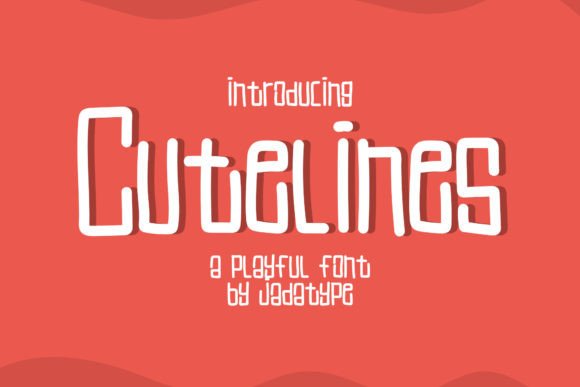
Introducing Cutelines: Where Whimsy and Style Entwine
Welcome to the world of Cutelines, a display font that captivates with its monoline lines and endless creative possibilities. A masterpiece crafted by jadatype, this font is your gateway to a world of visual delight. Whether you're a seasoned graphic designer or just starting, Cutelines is your perfect companion.
Cutelines Emerges as the Darling of Design
With its delicate yet striking strokes, Cutelines stands out as a font that exudes both elegance and playfulness. Its meticulously crafted characters dance across the screen, captivating audiences with their charm and originality. Imagine your designs adorned with Cutelines, radiating a unique visual appeal that sets them apart from the mundane.
A Versatile Gem for Every Creative Endeavor
Whether you're designing for social media, crafting products, or expressing your artistic flair in clothing and crafts, Cutelines seamlessly adapts to your vision. Its versatility knows no bounds, allowing you to effortlessly create designs that resonate with your audience. From playful social media posts that capture attention to visually stunning products that fly off the shelves, Cutelines is your secret weapon for creative success.
Unlock Your Imagination with a Symphony of Styles
With Cutelines, the possibilities are as endless as your imagination. Its diverse range of styles empowers you to explore a spectrum of design aesthetics. From the whimsical and lighthearted to the sophisticated and elegant, Cutelines transforms your ideas into breathtaking visual realities. Each style dances with its own personality, ready to elevate your designs to new heights of creativity.
Transform Your Designs into a Feast for the Eyes
Cutelines is more than just a font; it's an experience that engages the senses and ignites the imagination. Its monoline lines flow with a grace that draws the eye, creating designs that demand attention. Each character carries a story, inviting viewers to immerse themselves in the world you've created. Whether it's a social media post that sparks conversations or a product design that captures hearts, Cutelines turns your designs into visual masterpieces.